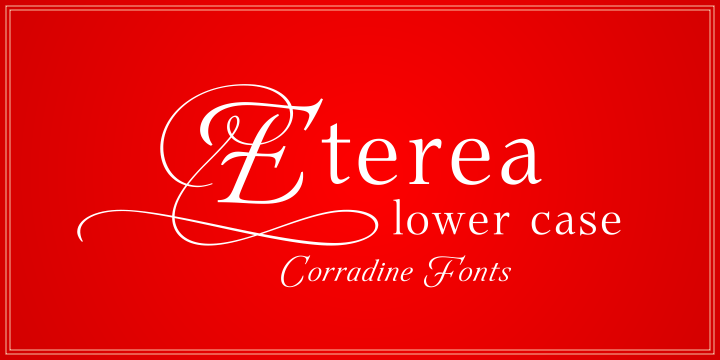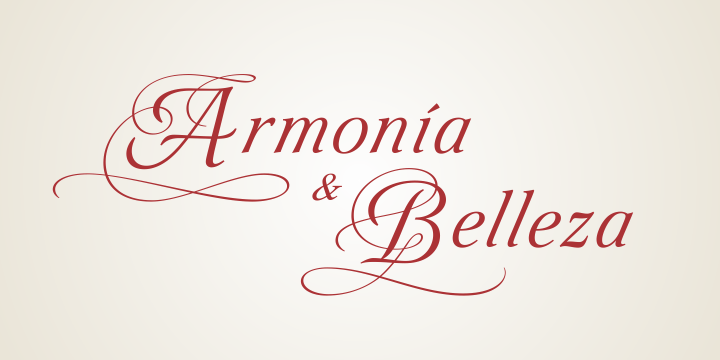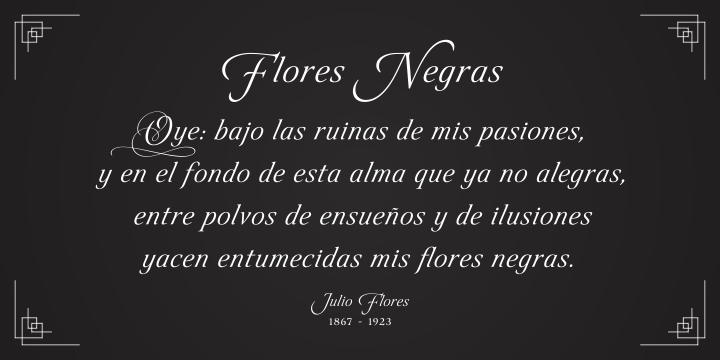
Eterea LC
Font Family by Corradine Fonts
Following the success of Eterea, Corradine fonts is proud to present the beautiful Eterea LC (Lower Case) with a renewed set.
Now you can use this version of Eterea to give a more readable and soft aspect to your work.